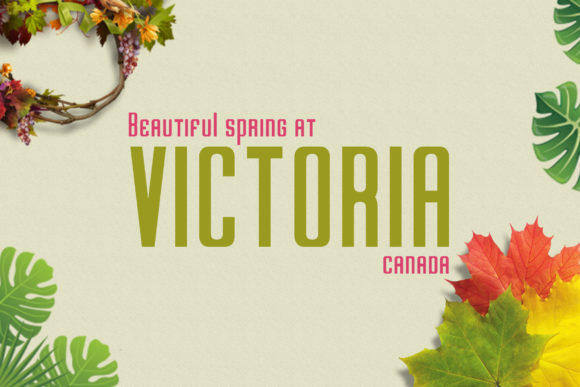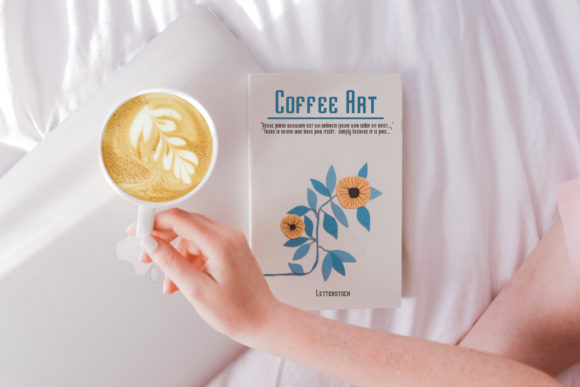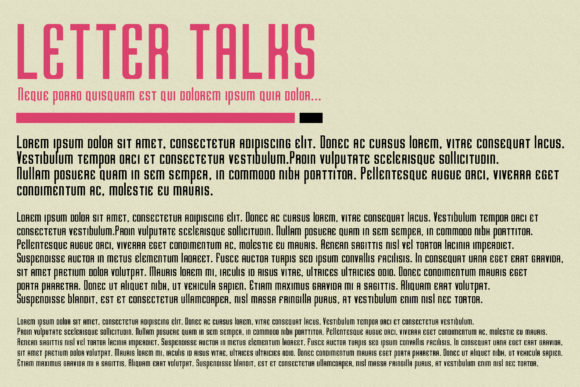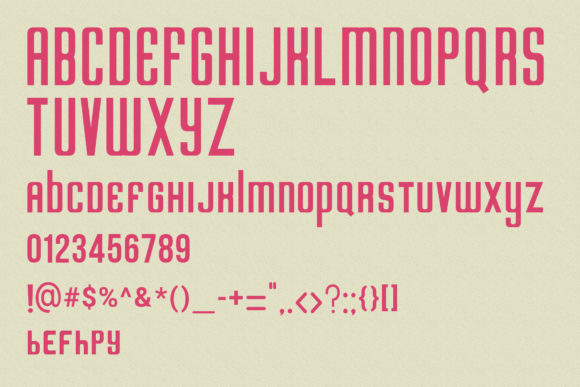
Introduction to Neowave Font
Have you ever found yourself staring at a blank canvas, waiting for the perfect font to bring your creative project to life? For designers, this moment is all too familiar. But what if you could unlock the secret to elevating your design to the next level? Enter the Neowave Font, a stunning sans serif font that combines elegance, strength, and a touch of whimsy.
Whether you’re working on a high-quality design project or simply looking for a free download to spice up your social media graphics, the Neowave Font is an invaluable resource for any creative. Its versatility and high-quality design make it the perfect choice for designers who crave a font that’s both cool and casual.
Key Features of Neowave Font
- Features a unique, futuristic aesthetic with a transparent background, making it perfect for digital art and graphics
- Perfect for use in digital design, graphic design, and typography, adding a touch of modernity and sophistication to any creative project
Honest Review: Neowave Font
As a designer, I’m always on the lookout for high-quality design resources to enhance my creative projects. Recently, I stumbled upon the Neowave Font, and I must say, it’s been a game-changer.
Here are some of the things that I like about the Neowave Font:
- ✨ High-quality design: The font is well-crafted, with a sleek and modern design that’s perfect for any creative project.
- ✨ Versatility: The font is available in a range of weights and styles, making it easy to use in various design contexts.
However, I do have a few criticisms:
- ⚠️ Limited customization options: While the font is versatile, it’s not easily customizable, which can be a limitation for designers who want to make more significant changes.
- ⚠️ Not suitable for all backgrounds: The font has a transparent background, which can be a problem if you’re designing for a project with a busy or complex background.
Overall, I’m impressed with the Neowave Font, and I would definitely recommend it to designers looking for a high-quality, free design resource. Just be aware of the limitations mentioned above, and you’ll be good to go!
The Neowave Font is suitable for a variety of creative projects, including digital art, graphic design, and branding. Its high-quality design and transparent background make it an excellent choice for presentations, documents, and websites.